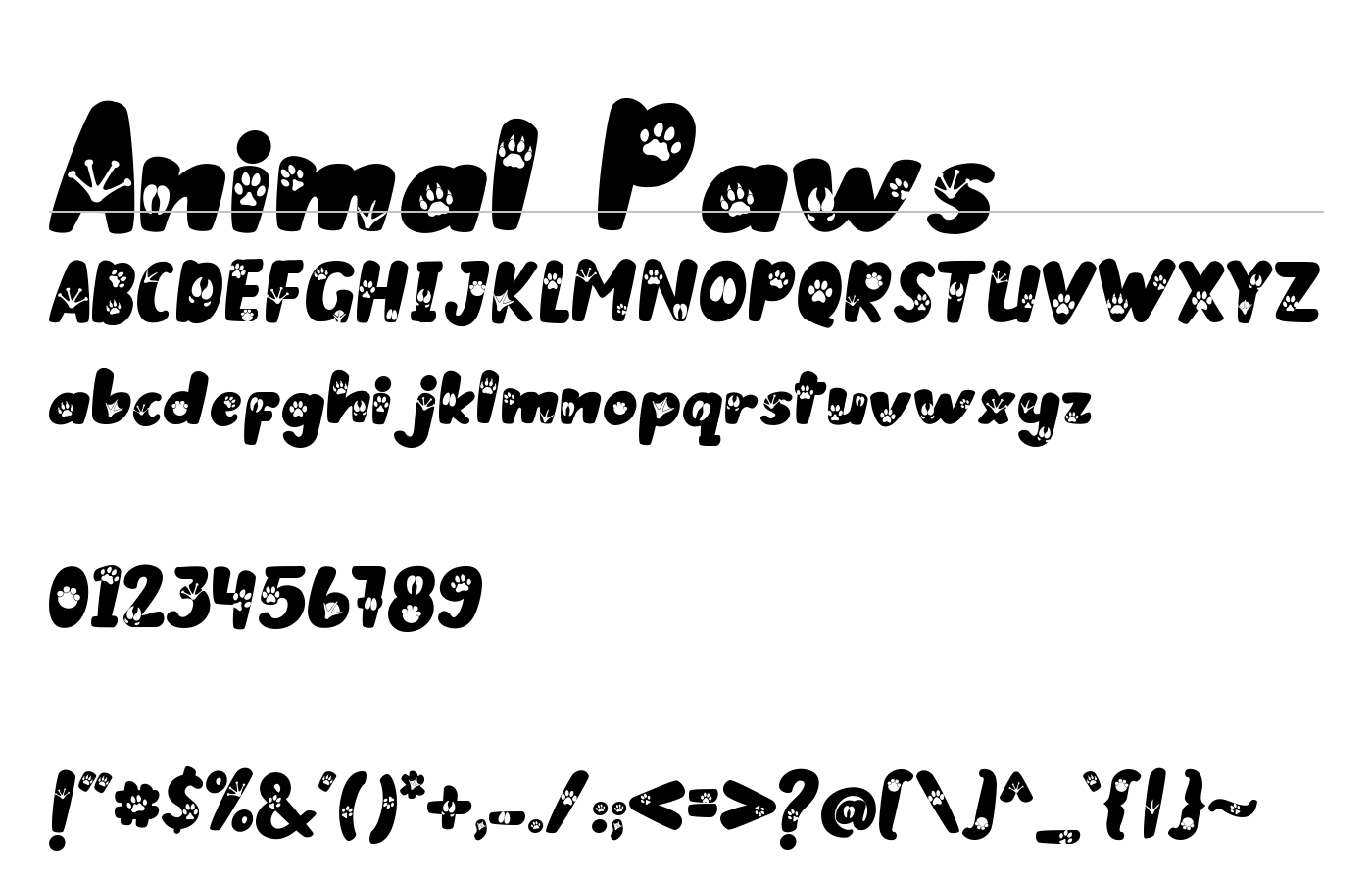
Animal Paws is a playful, chunky sans serif font characterized by bold, rounded letterforms adorned with cute animal paw prints integrated throughout. Its lively and informal style makes it perfect for children’s books, pet-related branding, and fun, approachable designs. This font's cheerful personality and decorative elements add a whimsical touch that works well in logos, posters, and casual headlines.
Animal Paws Font
About Animal Paws Font